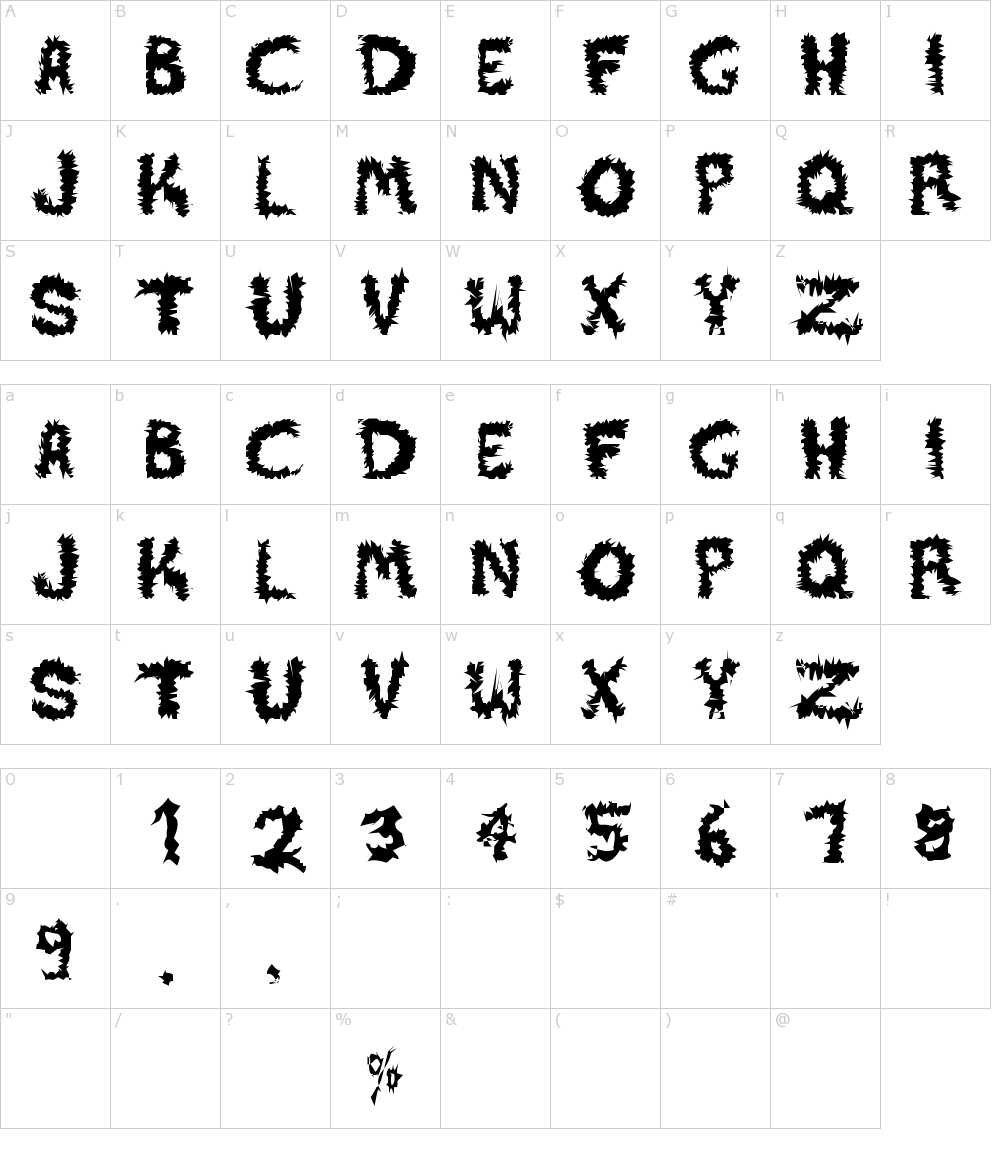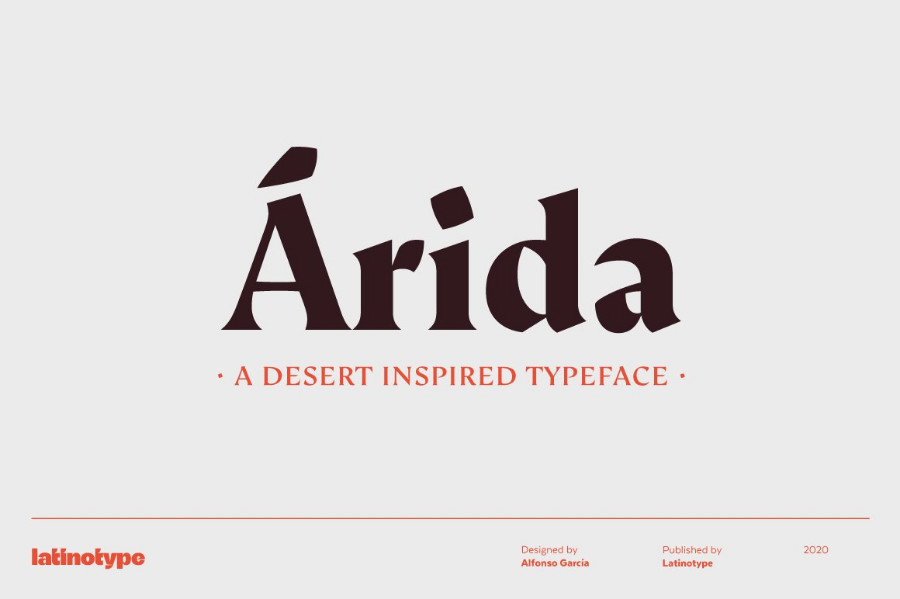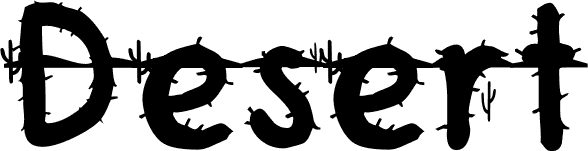
Desert Fonts
Desert Fonts. Black desert regular is the perfect font for all your fun designs. The font family is black desert.
17 of the Best Desert Fonts for a Traditional Southwest
This font uploaded 13 january 2013. Black desert regular is the perfect font for all your fun designs. Fonts desertdoghmk in handwriting category.
Desert font this font was posted on 06 may 2015 and is called desert font. You can also visit the author website, clicking here: The font is created with strong and challenging nuances.